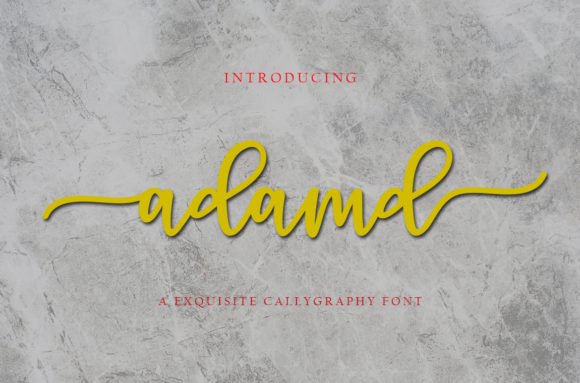
Introduction to Adamd Font
Adamd is an incredibly modern and simple handwritten font with an authentic charm.
Get inspired by its personal charm, and turn any design project into a stand out .
Key Features of Adamd Font
Why Choose Adamd Font?
Adamd Font offers exceptional quality and versatility, making it a valuable addition to your design toolkit. Whether you’re creating for personal projects or commercial use, Adamd Font delivers professional results.